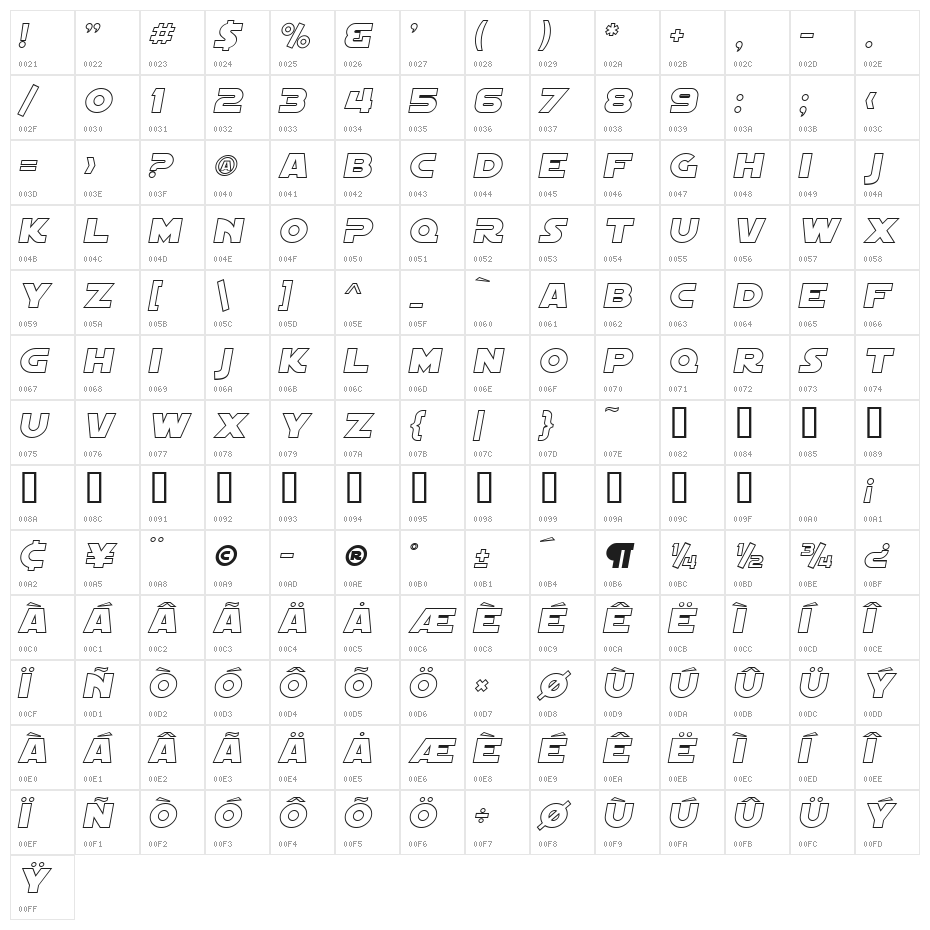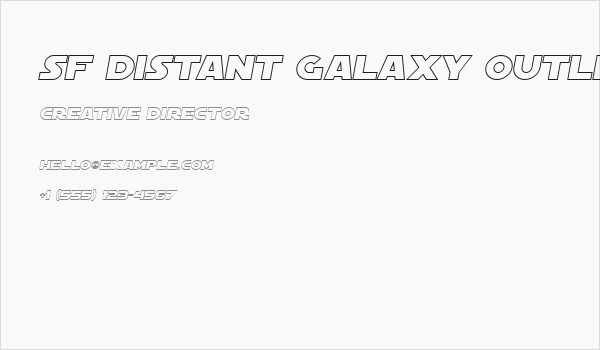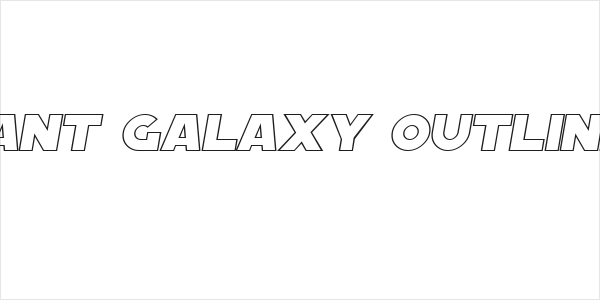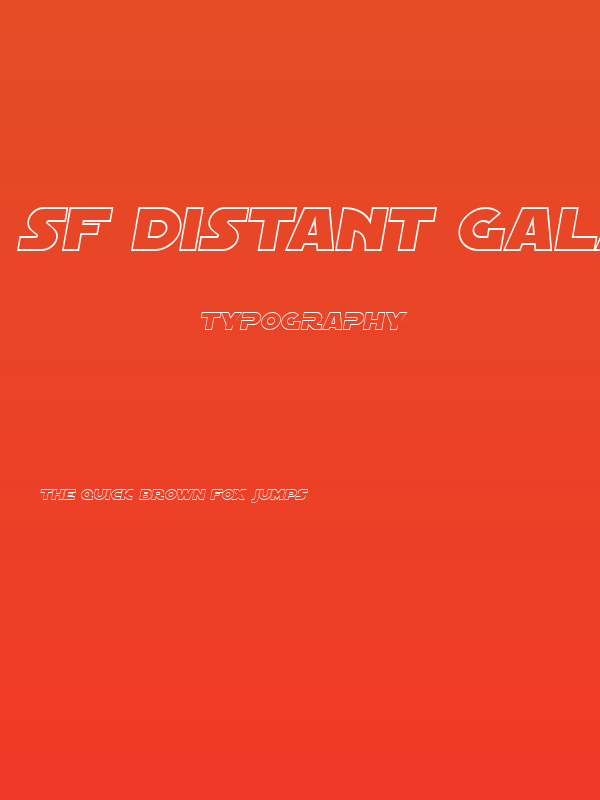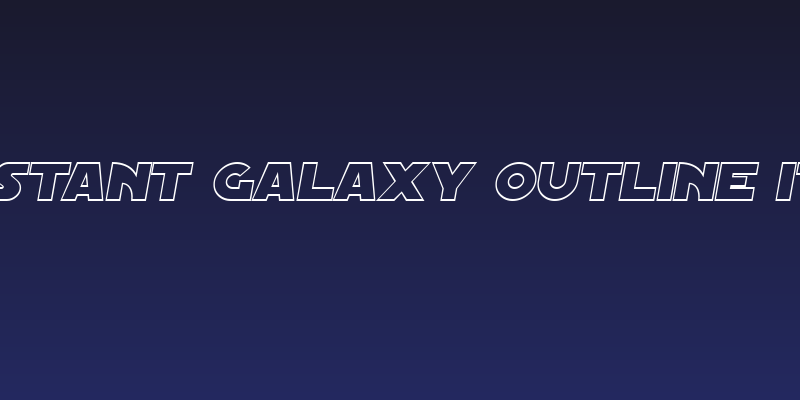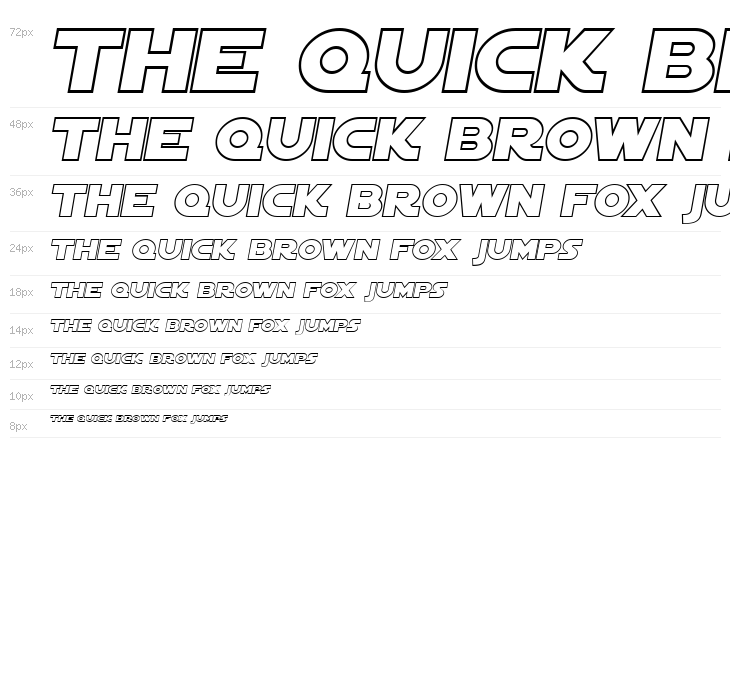
SF Distant Galaxy Outline Italic Font
SF Distant Galaxy Outline Italic Description
This font features a futuristic and bold outline style, characterized by its italicized and angular letterforms. The uppercase and lowercase letters maintain a consistent geometric structure, giving a sense of movement and speed. The numbers and special characters follow the same design principles, ensuring uniformity across all glyphs. The outline effect adds a dimensional quality, making it stand out in various design contexts. Its clean lines and modern aesthetic make it suitable for projects that require a contemporary and dynamic look.
| Proposed Projects | Ideal for sci-fi themed designs, video game titles, movie posters, and branding that requires a modern and dynamic appearance. |